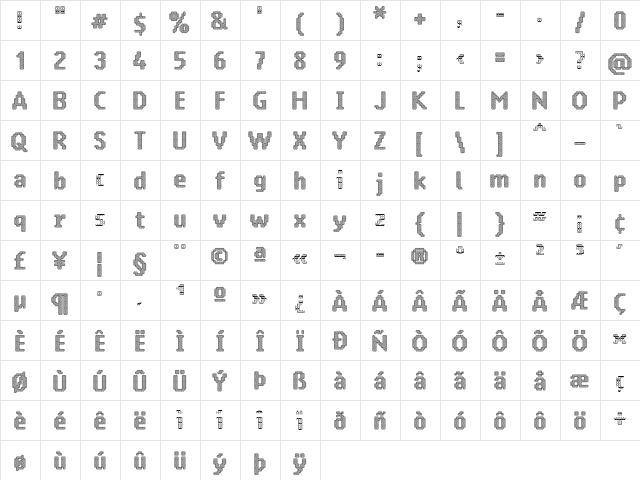
Vr宧 Regular Font Preview
Vr宧 Regular
Vr宧 Regular Font Details
| Foundry | Peter Wiegel |
| Designer | Peter Wiegel |
Design Context for Vr宧 Typeface
Vr宧 offers clean, dependable letterforms without strong stylistic allegiance, making it a practical choice for designers who need flexibility.